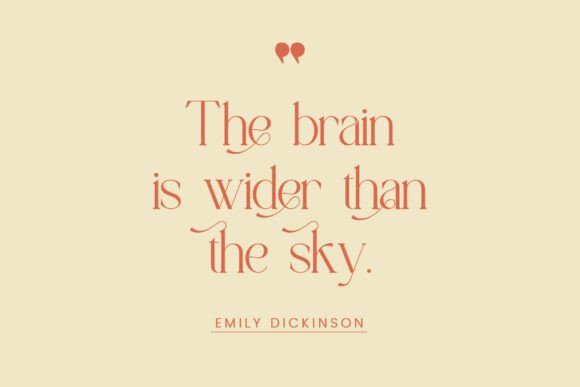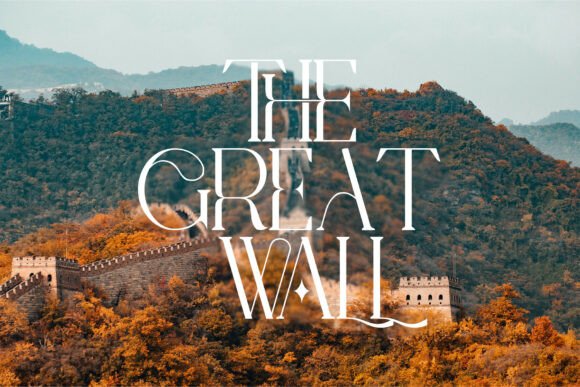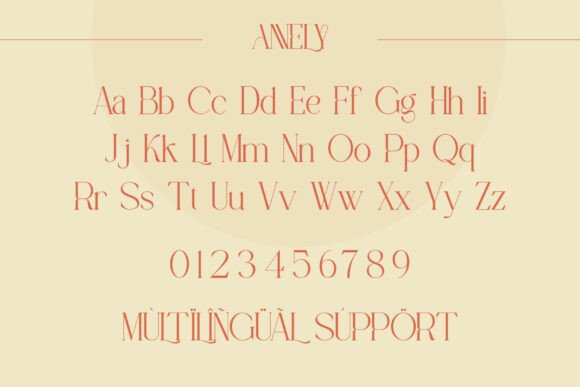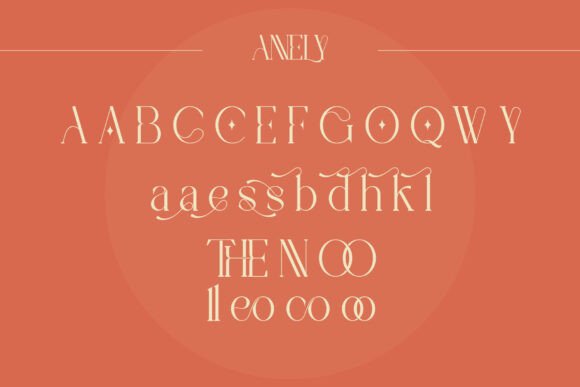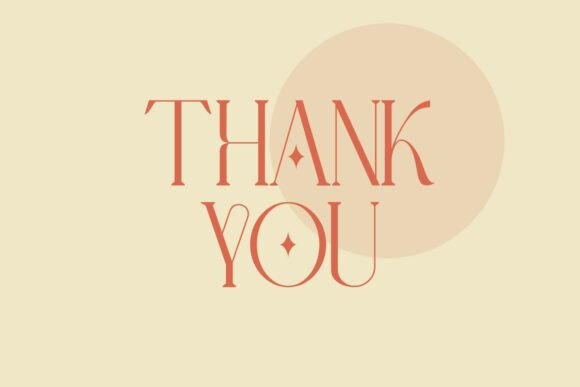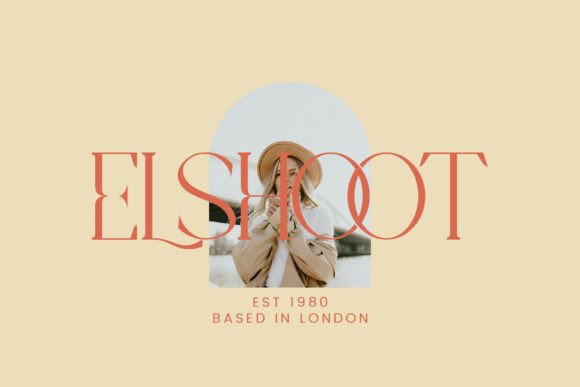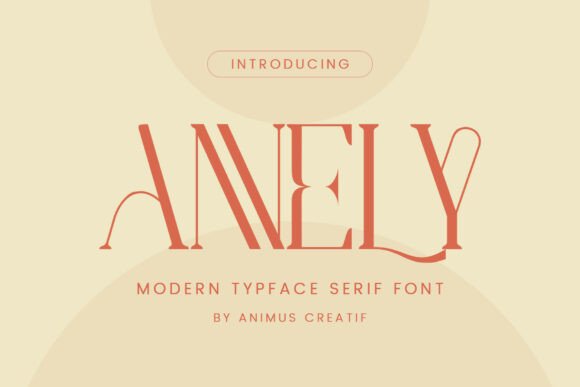
Introducing Annely Modern Serif Typeface Font: Elevate Your Designs with a Touch of Sophistication
In the world of design, typography plays a crucial role in conveying messages, expressing creativity, and capturing the audience’s attention. A well-chosen font can make or break a design project. If you’re a designer, craft, or simply someone who appreciates beautiful typography, you’re in luck! We’re excited to introduce the **Annely Modern Serif Typeface Font**, a stunning addition to the world of typography.
What is Annely Modern Serif Typeface Font?
The **Annely Modern Serif Typeface Font** is a thoughtfully designed font that embodies the essence of modernity and minimalism. Its clean lines, elegant curves, and precision-crafted details make it the perfect choice for designers seeking a sophisticated and professional look. This versatile font is suitable for a wide range of design applications, including logos, brochures, videos, advertising branding, posters, invitations, and more.
Key Features of Annely Modern Serif Typeface Font
- Modern and Minimalist Style: Annely’s design is characterized by simplicity, clarity, and a touch of elegance, making it perfect for contemporary designs.
- High Versatility: This font is suitable for various design projects, from corporate branding to creative endeavors.
- Professional and Appealing: The Annely font is designed to elevate your designs, giving them a polished and sophisticated look that captures attention.
- Easy to Read: The font’s clarity and legibility ensure that your message is conveyed effectively, making it perfect for body text and headings.
Design Applications for Annely Modern Serif Typeface Font
The **Annely Modern Serif Typeface Font** is an excellent choice for a variety of design projects, including:
- Logo Design: Create a lasting impression with a custom logo that exudes professionalism and style.
- Brochures and Flyers: Engage your audience with well-designed marketing materials that showcase your brand’s personality.
- Video Titles and Subtitles: Add a touch of sophistication to your video content with a font that’s both modern and elegant.
- Advertising and Branding: Establish a strong brand identity with a font that’s versatile and attention-grabbing.
- Posters and Prints: Create visually stunning posters and prints that leave a lasting impression.
- Invitations and Events: Add a touch of elegance to your event invitations and marketing materials.
Why Choose Annely Modern Serif Typeface Font?
With so many fonts available, why choose Annely? Here are a few compelling reasons:
- Unique and Exclusive: The Annely font is a distinctive addition to any design project, setting you apart from the crowd.
- Time-Saving: With its versatility and ease of use, Annely saves you time and effort in finding the perfect font for your project.
- High-Quality Design: The font’s precision-crafted details ensure a professional and polished look that elevates your designs.
The **Annely Modern Serif Typeface Font** is a game-changer for designers and crafters seeking a modern, elegant, and versatile font. Its wide range of applications, ease of use, and high-quality design make it an excellent addition to any design project. Whether you’re a seasoned designer or just starting out, Annely is the perfect choice to elevate your designs and make them look professional and appealing. So why wait? Discover the world of possibilities with the **Annely Modern Serif Typeface Font** and take your designs to the next level!